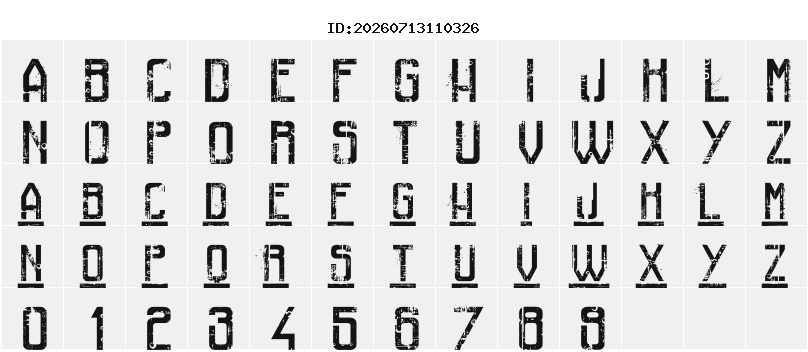
Railway To Hells.ttf
• Font Name: Railway To Hells
• Designer: imagex
About Railway To Hells.ttf
Railway To Hells.ttf is a modern, elegant sans-serif font designed for ultimate readability and visual harmony. Perfect for branding, headlines, web design, and print materials.